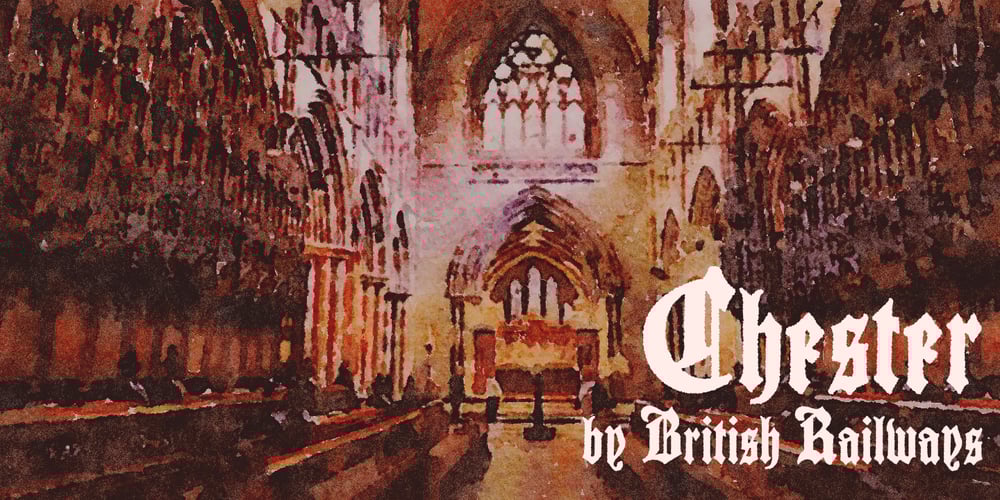
Cantebriggia 1207 Font Family was designed by Paul James Lloyd and published by Greater Albion Typefounders. Cantebriggia 1207 contains 1 styles and family package options. Cantebriggia 1207 is Greater Albion’s Christmas Black Letter typeface for 2017. It’s a weathered calligraphic ‘English’ perpendicular. There isn’t a specific significance to the year 1207 – it’s just a reversal of the current year, 2017. Why not try Cantebriggia 1207 in your seasonal design projects?